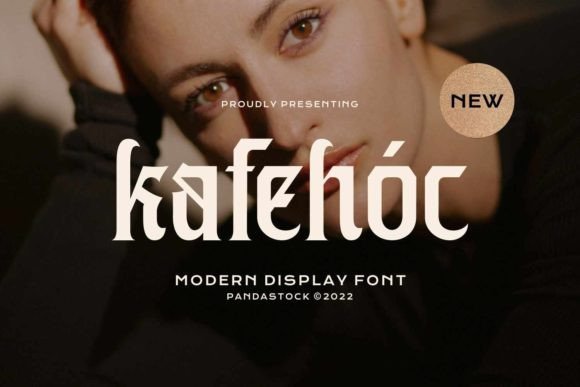
Unleash your creativity with Kafehoc, the modern blackletter font that exudes elegance and grace. Its smooth curves, beautiful ligatures, and captivating presence bring a touch of sophistication to any project, making your work shine with visual allure.
Kafehoc's versatility knows no bounds, effortlessly adapting to various sizes, whether you're crafting a delicate invitation or a grand magazine spread. Its diverse applications span logos, branding, photography, and product packaging, adding a distinctive charm to your creations.
From personal projects to corporate ventures, Kafehoc shines as the perfect font for all business sectors. Its timeless appeal complements creative agencies, studios, and industrial companies alike, elevating your brand's identity to new heights.
With Kafehoc, you'll discover endless possibilities for expression. Its suitability for editorials, social media, and websites ensures that your online presence radiates with sophistication. Let Kafehoc be your artistic ally, transforming your creative visions into tangible masterpieces.
Step into a world of visual elegance with Kafehoc, the font that captivates and inspires. Its boundless versatility and timeless charm await your creative touch, ready to transform your projects into works of art. Embrace Kafehoc today and embark on a journey of visual excellence.